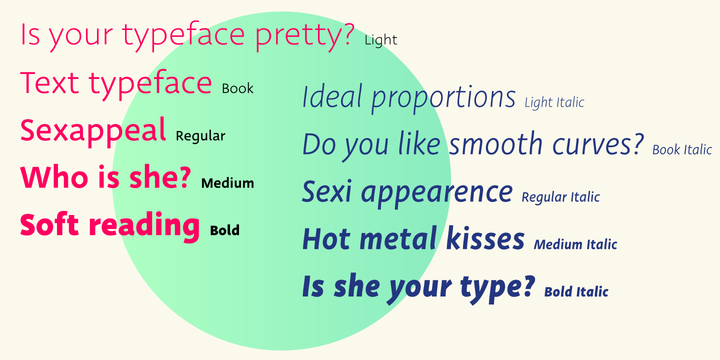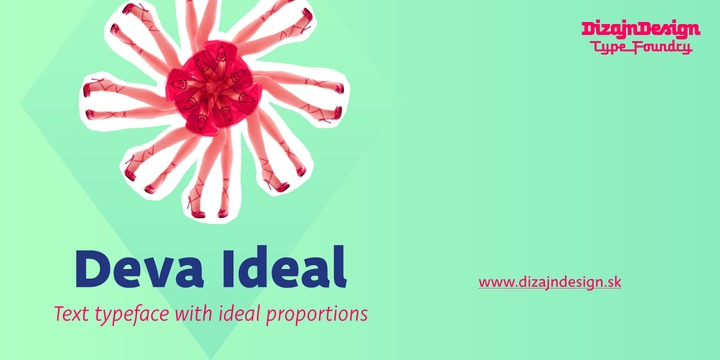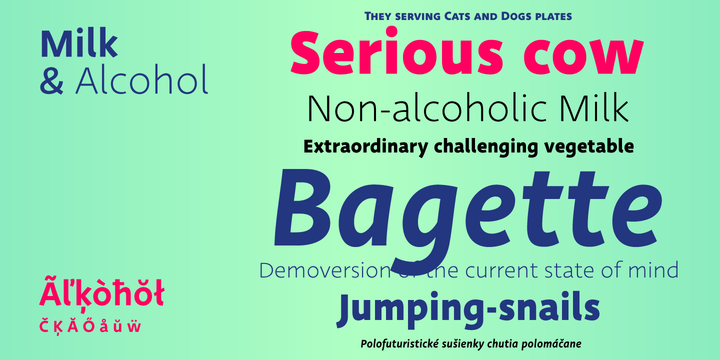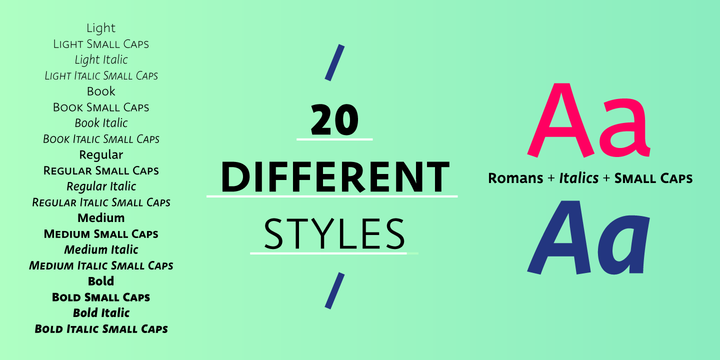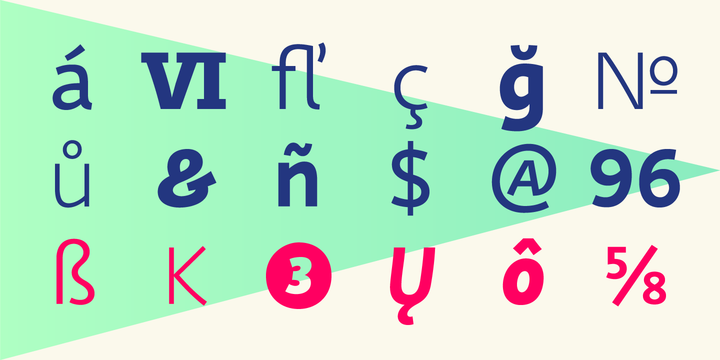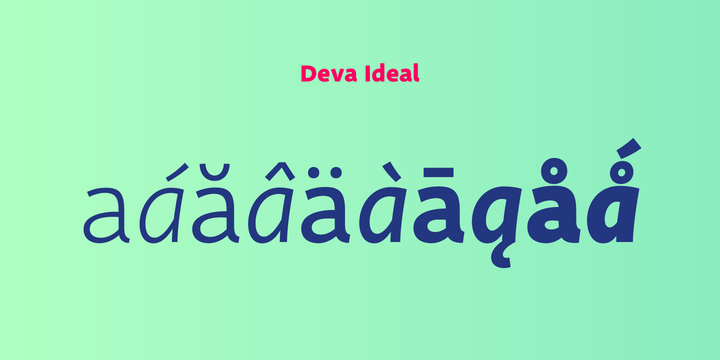
Deva Ideal Font Family
Deva Ideal was inspired by women’s beauty. It didn’t come only from the desire to create a new typeface. It also seeks to materialize beauty in a visual form.
Instead of imitating the shapes of the female body or other formal attributes, Deva Ideal is an abstract expression of the women’s beauty.
The unique character of the typeface is achieved by the use of soft, almost invisibly bent strokes, since one of the priorities of the typeface is not to disturb the eye of the reader with odd design details. Deva Ideal excels in her cold beauty and shows her sex appeal. The soft curves present in Deva Ideal differ from the masculine and technical shapes used in most contemporary typefaces.